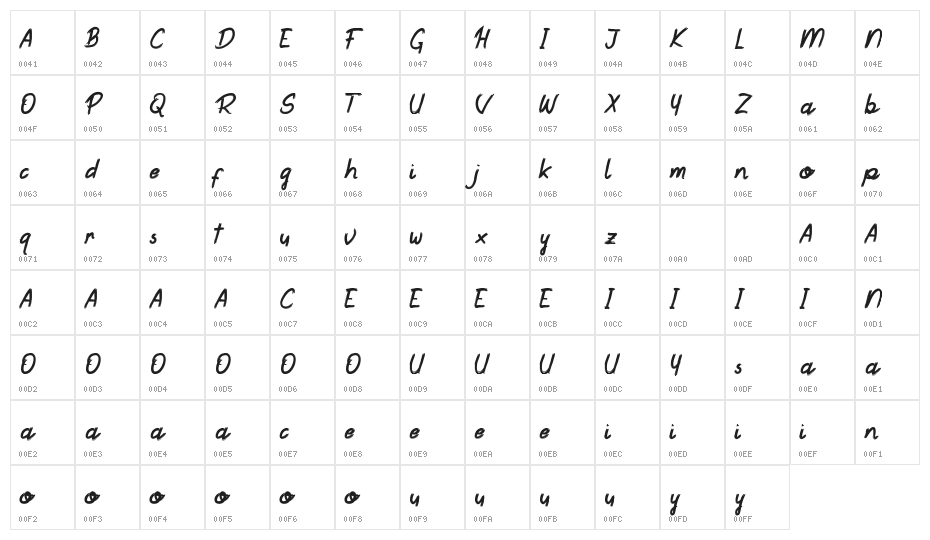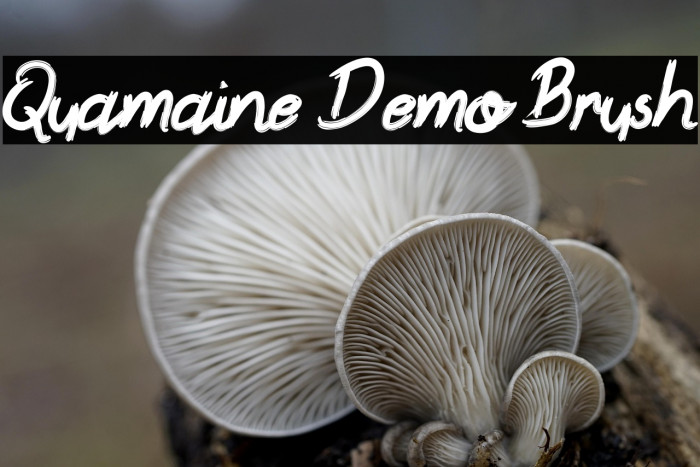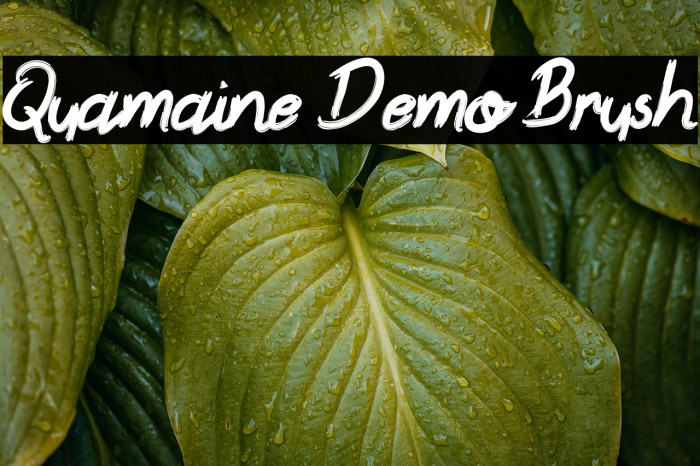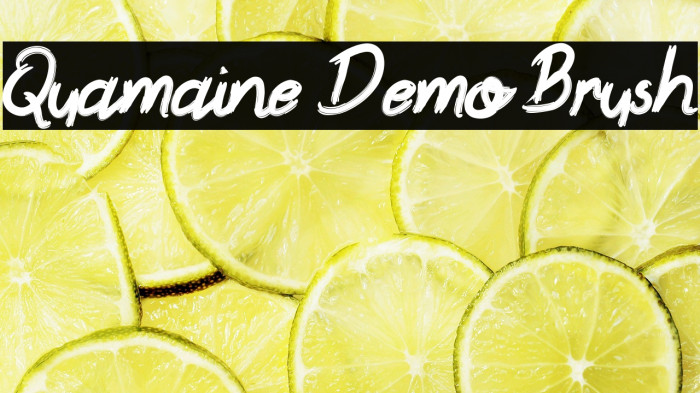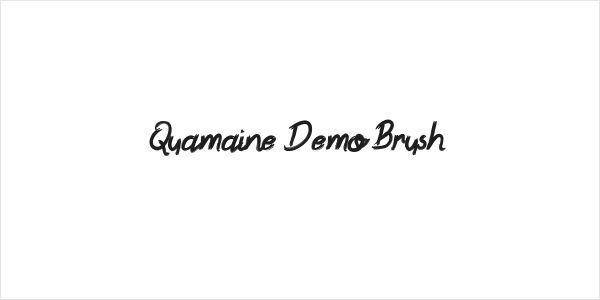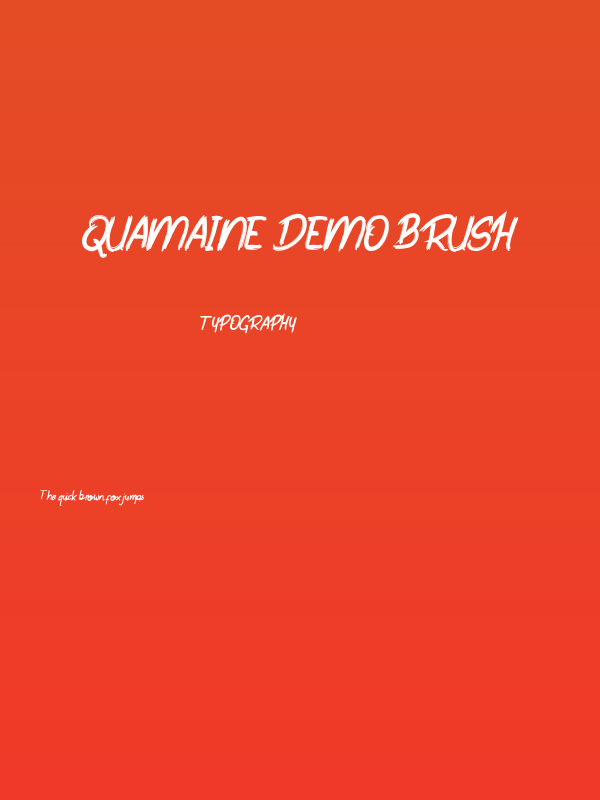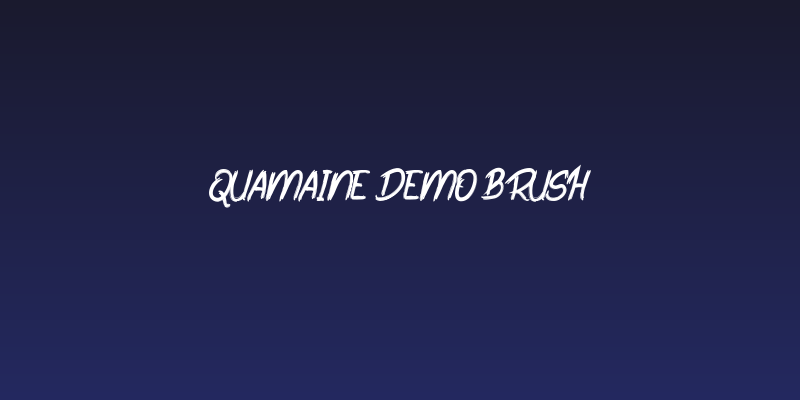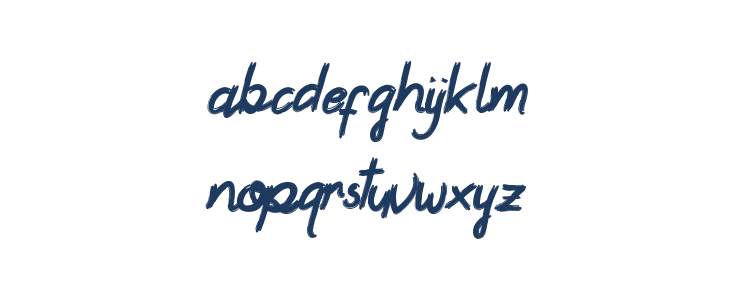
Quamaine Demo Brush Font
Quamaine Demo Brush Description
This brush script font exudes a dynamic and energetic feel, characterized by its bold and expressive strokes. The letters are crafted with a hand-painted appearance, giving them a lively and artistic flair. The uppercase and lowercase letters maintain a consistent style, with sweeping curves and sharp angles that create a sense of movement. The font's texture mimics the effect of a brush, adding depth and personality to each character. It is well-suited for creative projects that require a personal touch, such as invitations, posters, and branding materials.